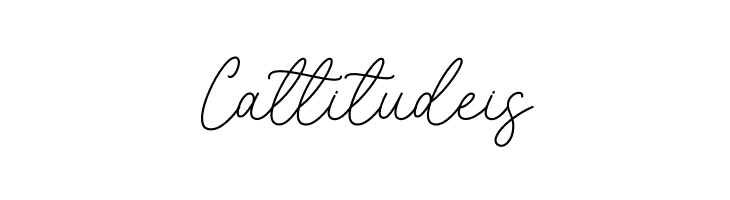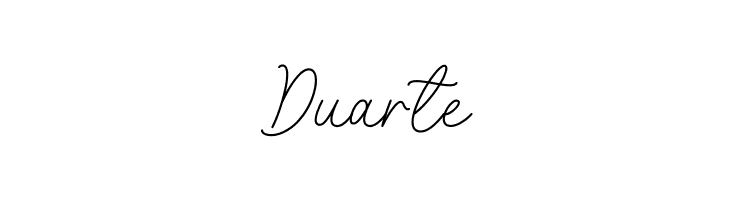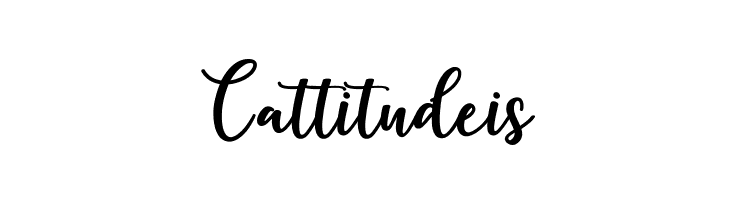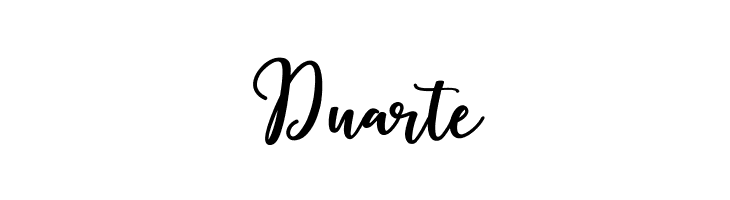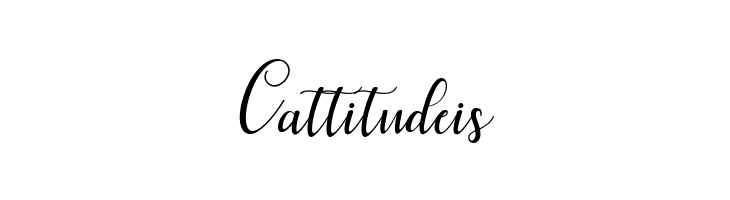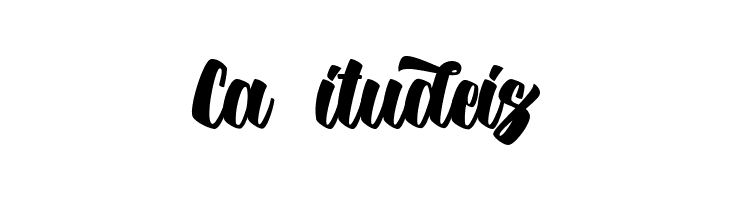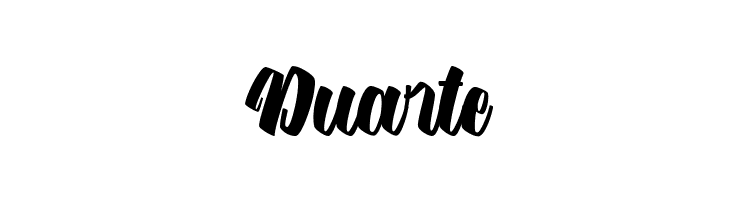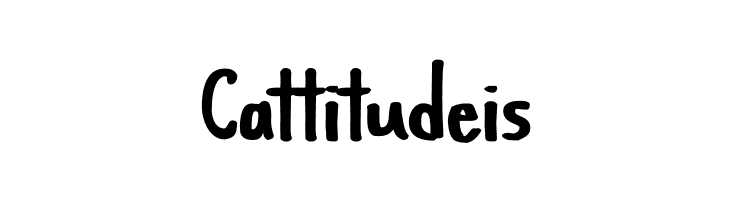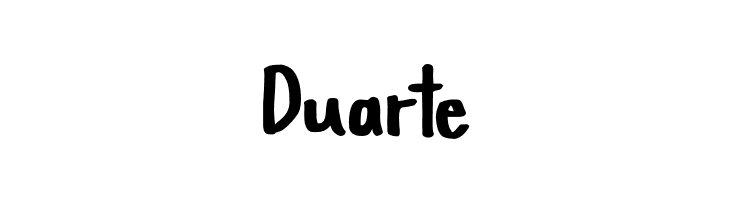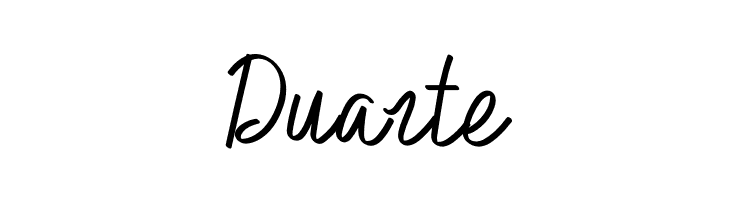
( Fonts by Barland ) An elegant script font with flowing lines and decorative swirls. Download 1657 Downloads@WebFont
( Fonts by Nur Solikh - Personal-use only. For commercial use please contact owner. ) A flowing, cursive script font with elegant curves and a hand-drawn look. Download 28 Downloads@WebFont
( Fonts by 97Designs ) A bold, handwritten font with a casual and artistic style. Download 1053 Downloads@WebFont
( Fonts by Ainun Jinan ) A playful and elegant script font with flowing, cursive letters. Download 166 Downloads@WebFont
( Debut Studio - Ari Fadli - creativemarket.com/debutstudio ) A playful, casual font blending script and sans-serif styles. Download 151 Downloads@WebFont
( Fonts by AVType - Personal-use only. For commercial use please contact owner. ) A charming script font with flowing, connected letters and elegant flourishes. Download 50 Downloads@WebFont
( Fonts by Rissyletter Studio ) A graceful, handwritten script with thin lines and flowing forms. Download 66 Downloads@WebFont
( Fonts by Typebae Foundry ) A lively and flowing script font with elegant, interconnected letters. Download 304 Downloads@WebFont
( Fonts by Nurul Kamal - Personal-use only. For commercial use please contact owner. ) An elegant and fluid script font with graceful curves and a dynamic slant. Download 49 Downloads@WebFont
( Musafir LAB ) A graceful script font with fluid, interconnected strokes and a refined aesthetic. Download 401 Downloads@WebFont
( Fonts by Mats ) A bold, brush-style script font with dynamic, flowing strokes. Download 432 Downloads@WebFont
( Fonts by The Scriptorium - Dave Nalle ) A whimsical and decorative font with playful flourishes and embellishments. Download 973 Downloads@WebFont
( Fonts by Runsell Studio - Personal-use only. For commercial use please contact owner. ) A flowing, cursive script font with elegant, connected characters. Download 33 Downloads@WebFont
( Fonts by The Scriptorium - Dave Nalle ) A bold, decorative font with intricate, swirling patterns and a vintage psychedelic vibe. Download 940 Downloads@WebFont
( Gartype Studio ) A fluid and elegant script font with dynamic cursive letterforms. Download 103 Downloads@WebFont
( Fonts by Mans Greback - www.mansgreback.com - Personal-use only. For commercial use please contact owner. ) A delicate and elegant script font with flowing, elongated letterforms. Download 27 Downloads@WebFont
( Fonts by The Scriptorium - Dave Nalle ) An ornate, decorative font with calligraphic elegance and intricate flourishes. Download 506 Downloads@WebFont
( Fonts by Rizka Prayuda - Personal-use only. For commercial use please contact owner. ) A bold, cursive script font with smooth, connected strokes. Download 101 Downloads@WebFont
( Fonts by Rizka Prayuda - Personal-use only. For commercial use please contact owner. ) A lively and dynamic script font with flowing, connected letterforms. Download 39 Downloads@WebFont
( Fonts by Måns Grebäck ) A graceful script font with fluid, interconnected letters and elegant flourishes. Download 1551 Downloads@WebFont
( Fonts by MJB Letters - Muhammad Mujibulloh - Personal-use only. For commercial use please contact owner. ) A casual, handwritten script font with fluid, connected letterforms. Download 32 Downloads@WebFont
( Fonts by MixJpg - Personal-use only. For commercial use please contact owner. ) An elegant script font with flowing cursive style and intricate swashes. Download 37 Downloads@WebFont
( Fonts by FallenGraphic Studio - Vava Aryanto - Personal-use only. For commercial use please contact owner. ) A bold, elegant script font with flowing, interconnected strokes. Download 37 Downloads@WebFont
( Fonts by Creative Lab - Creative LAB - Personal-use only. For commercial use please contact owner. ) An elegant script font with flowing curves and decorative flourishes. Download 32 Downloads@WebFont
( Siwox Studios - bit.ly/saffatinmyfonts ) A flowing, cursive script font with elegant, connected letters. Download 382 Downloads@WebFont
( Fonts by JOEBOB graphics ) A bold, brushstroke-style font with a dynamic, textured appearance. Download 112 Downloads@WebFont
( Fonts by Hanoded - David Kerkhoff - Personal-use only. For commercial use please contact owner. ) A playful, hand-drawn font with bold, rounded strokes and a whimsical style. Download 107 Downloads@WebFont
( Fonts by Jetsmax Studio - Khairil Anwar - Personal-use only. For commercial use please contact owner. ) A playful and whimsical script font with flowing, connected letterforms. Download 28 Downloads@WebFont